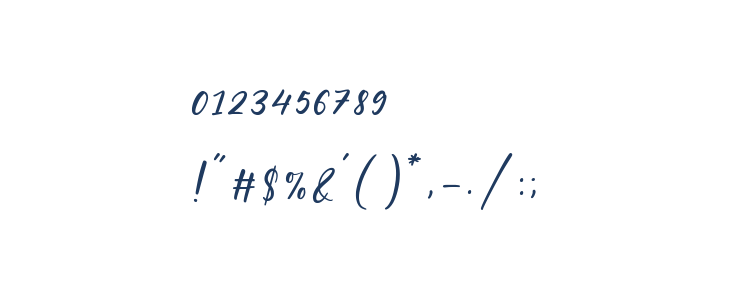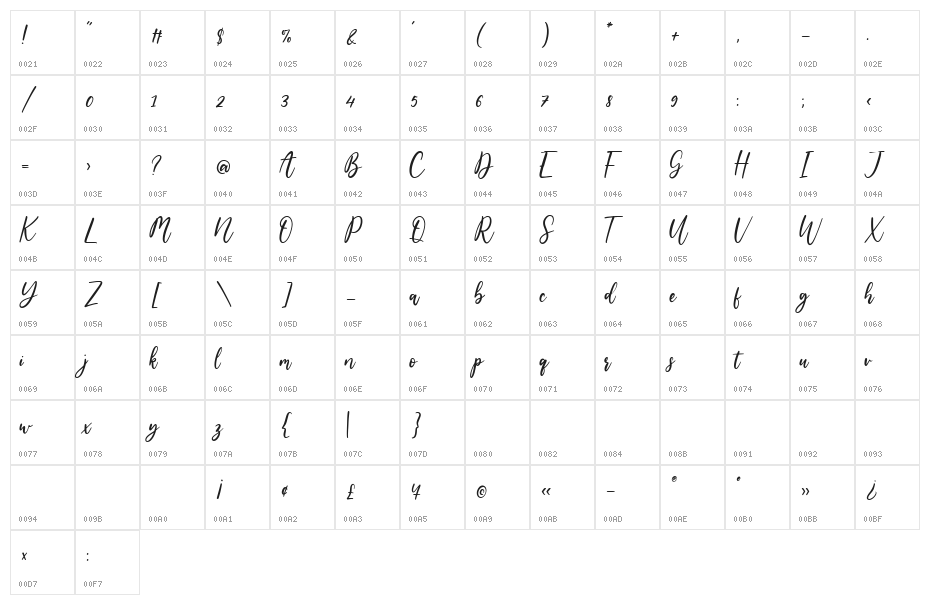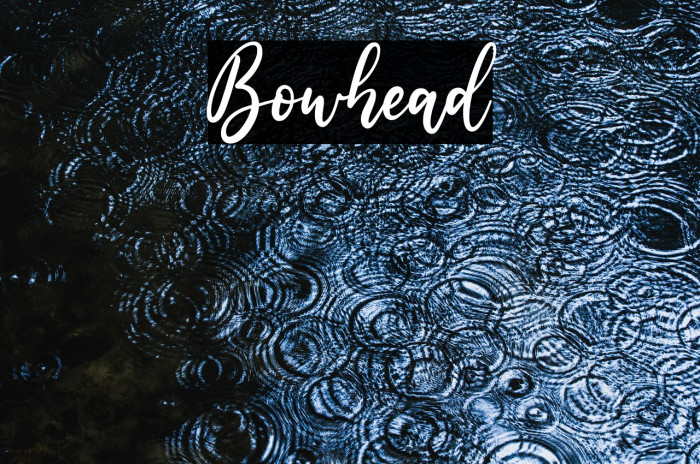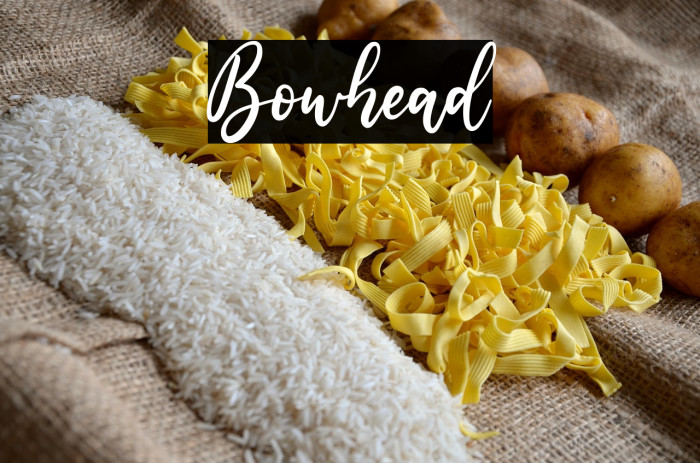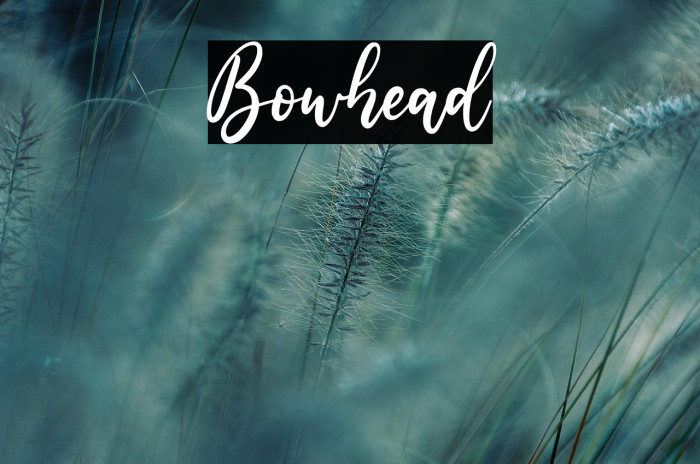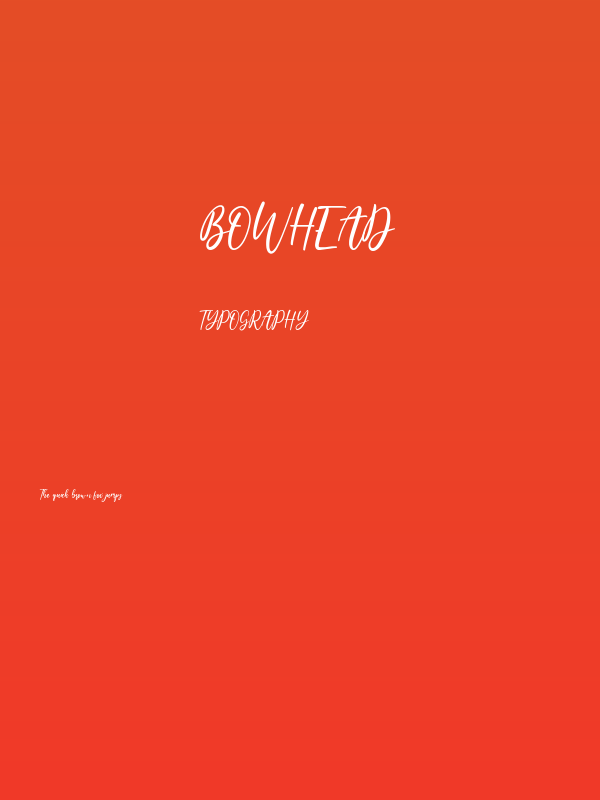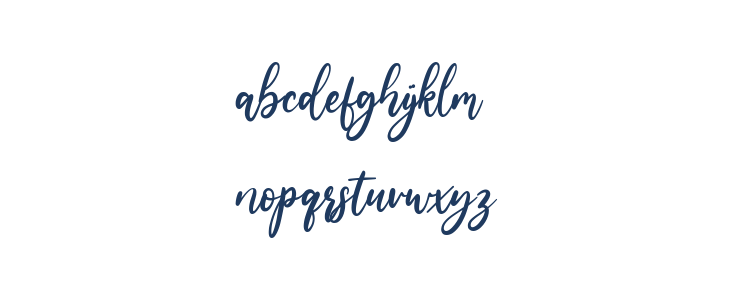
Bowhead Font
Bowhead Description
This font features a flowing, cursive style with elegant, sweeping strokes that give it a handwritten appearance. The uppercase letters are tall and slightly slanted, with distinctive loops and flourishes that add a touch of sophistication. The lowercase letters maintain a consistent flow, enhancing the script-like quality. Numbers are styled to match the letters, with a playful yet refined look. Special characters are integrated seamlessly, maintaining the overall aesthetic. This font is perfect for projects that require a personal, artistic touch, such as invitations, greeting cards, or branding materials.
| Use Case | Logos, Headlines, Artistic projects |
| Proposed Projects | Ideal for invitations, greeting cards, branding, and artistic projects. |